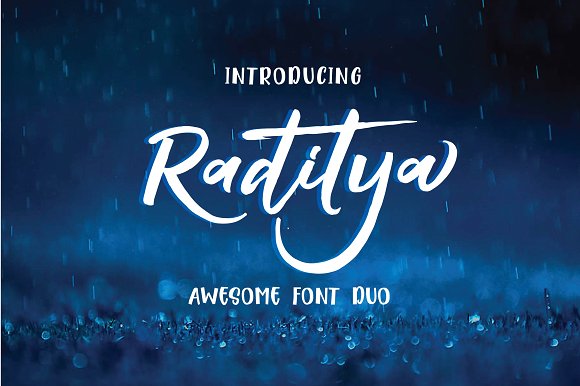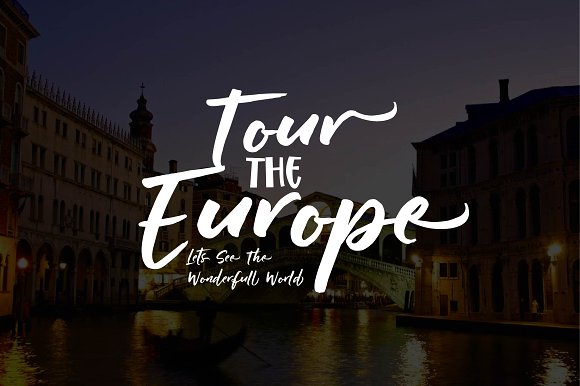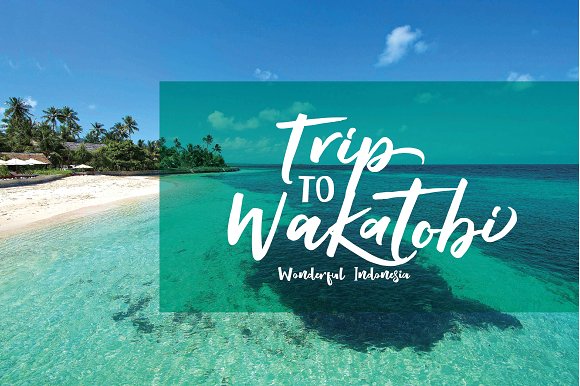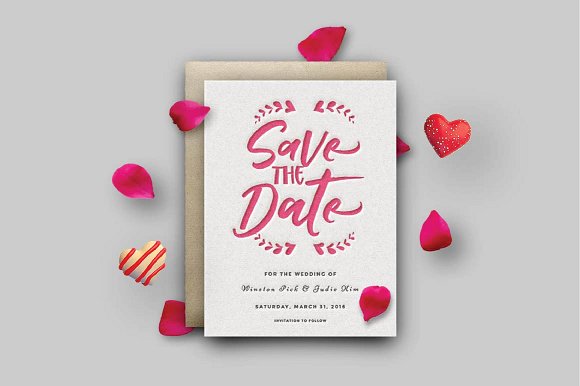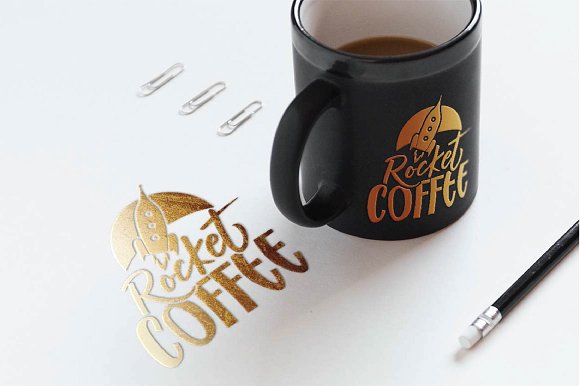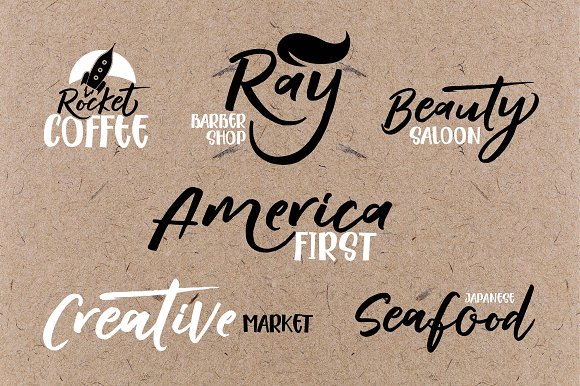
HomeScript FontsRaditya Font Script Fonts Raditya Font FacebookXPinterestWhatsApp Raditya Font Poster 2 Raditya Font Poster 3 Raditya Font Poster 4 Raditya Font Poster 5 Raditya Font Poster 6 About Raditya Font Raditya is a solid handwritten typeface. DOWNLOAD ON CREATIVE FABRICAThis font is sold and delivered by Creative Fabrica. Font Canyon may earn a commission if you buy through this link. People also explored Brayden Mccoy Font Please Oneself Duo Font Keraton Arlaya Font Grattenburg Font Van Gall Font Sweet Bloom Font Cat Meow Font Creative Letter Font 306 0 TagsRaditya Font Previous articleNightgirls FontNext articleRicca Font LEAVE A REPLY Cancel reply Comment: Please enter your comment! Name:* Please enter your name here Email:* You have entered an incorrect email address! Please enter your email address here Website: Save my name, email, and website in this browser for the next time I comment. Personal Use Free Meloche Book Personal Use Free Read more about this font Bahjera Personal Use Free Read more about this font Wanita Cantik Personal Use Free Read more about this font Martani Personal Use Free Read more about this font BLOG Fonts That Capture the Spirit of New York City New York City is more than just a place—it’s an experience, a rhythm, a visual language... Transform Your Website: Elevate Your Typography with 7 Best Web Font Generators Exploring Font Trends How to Install and Use Fonts on Windows, macOS, and Web Projects